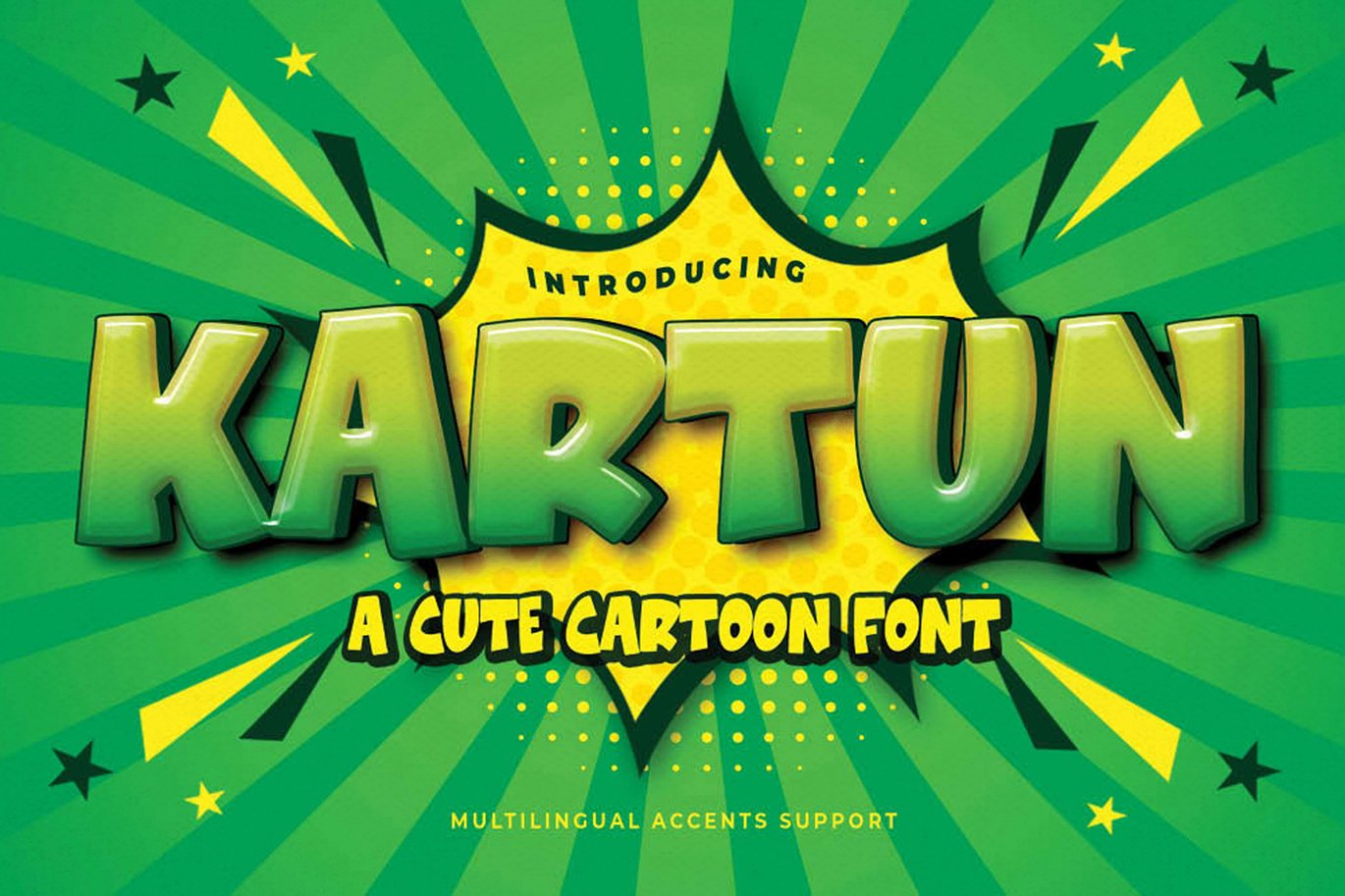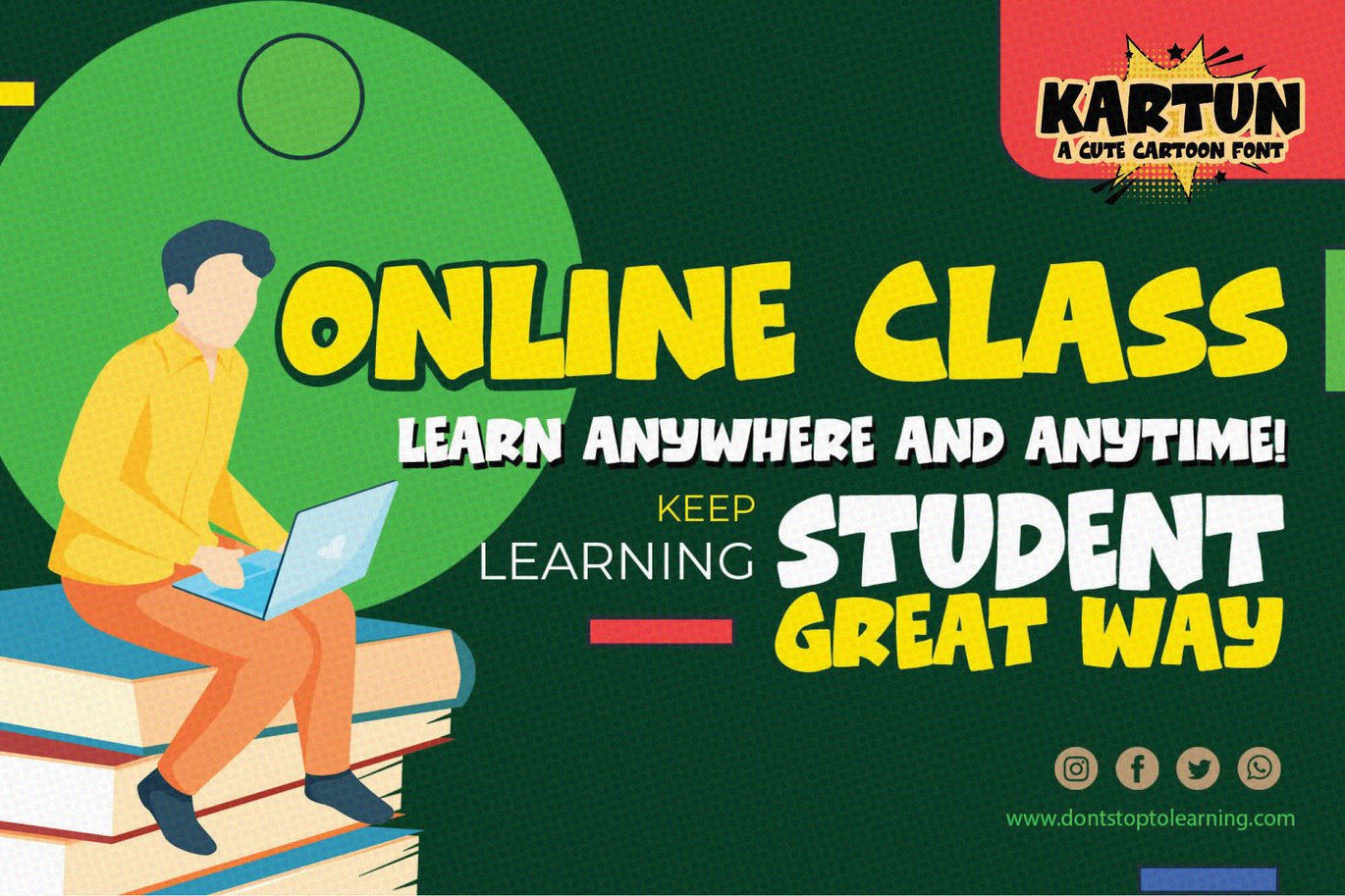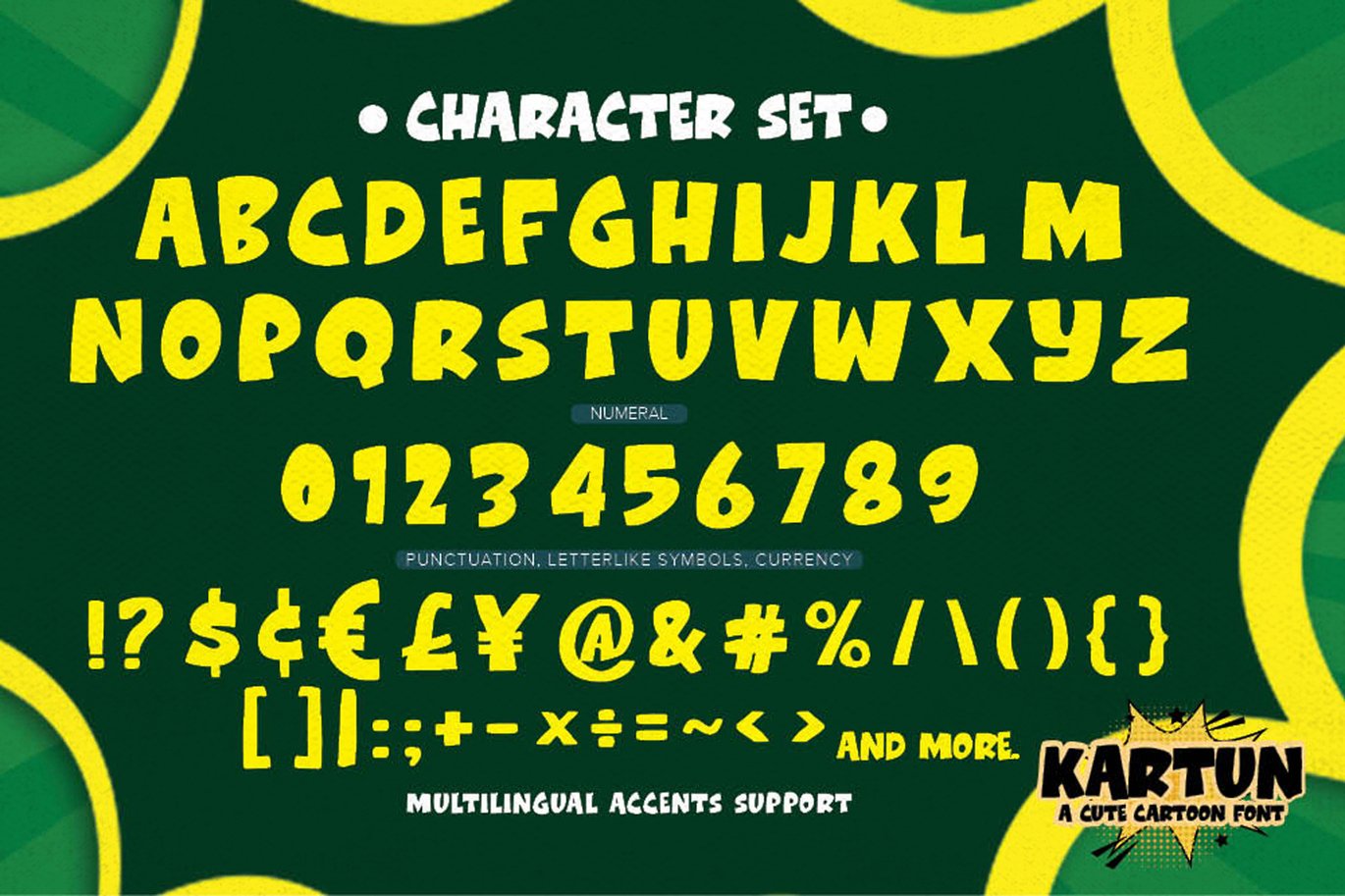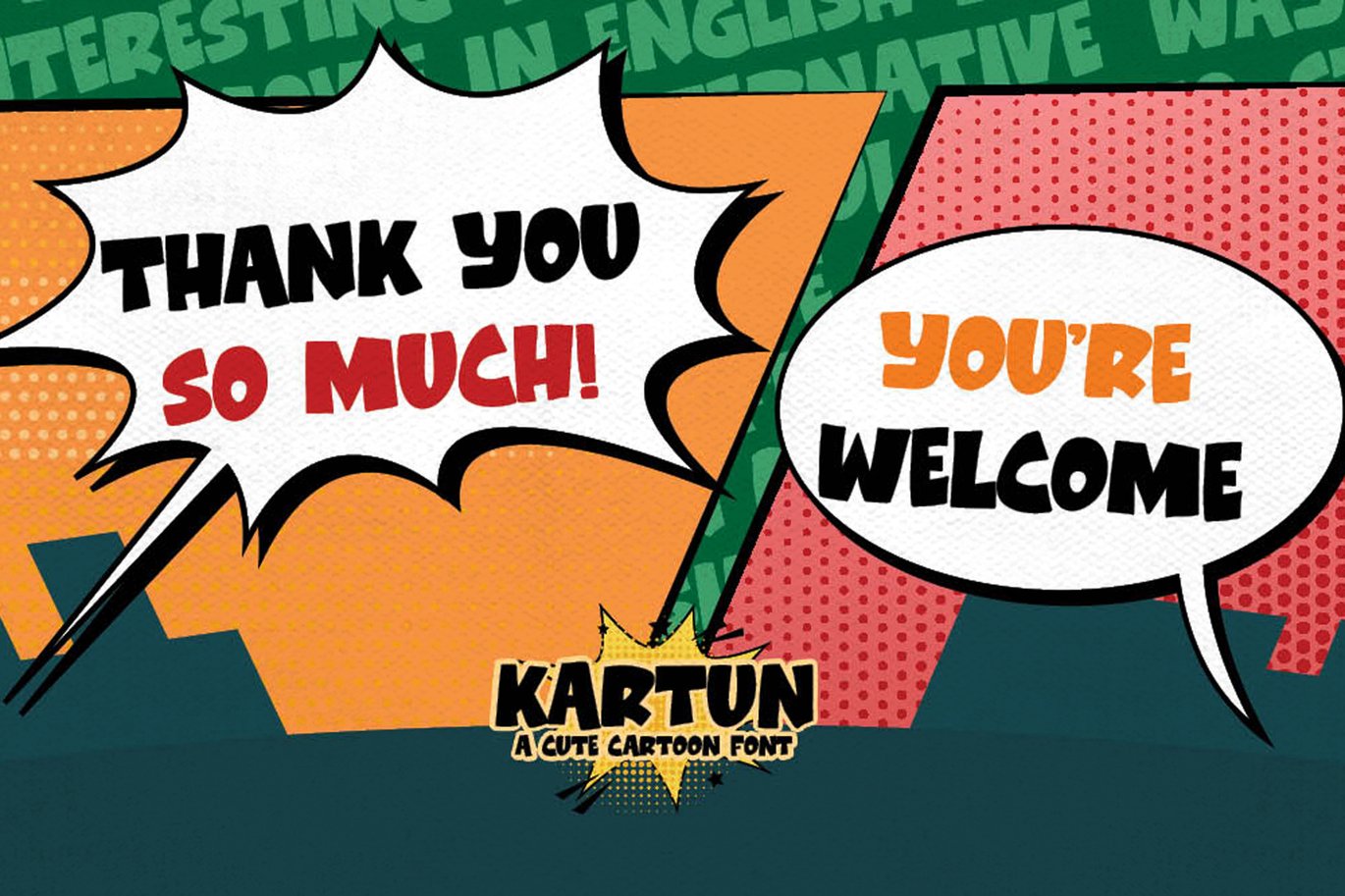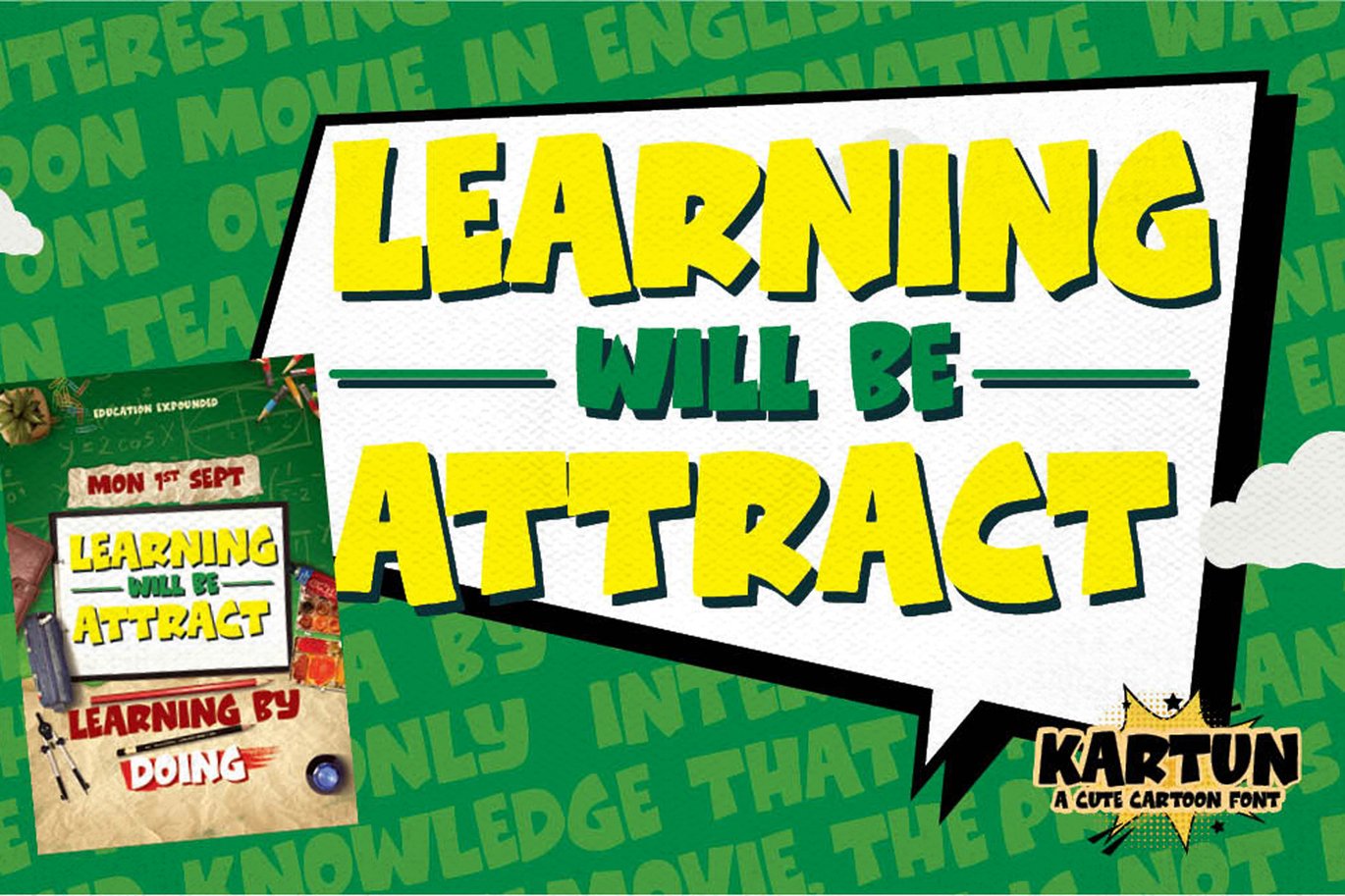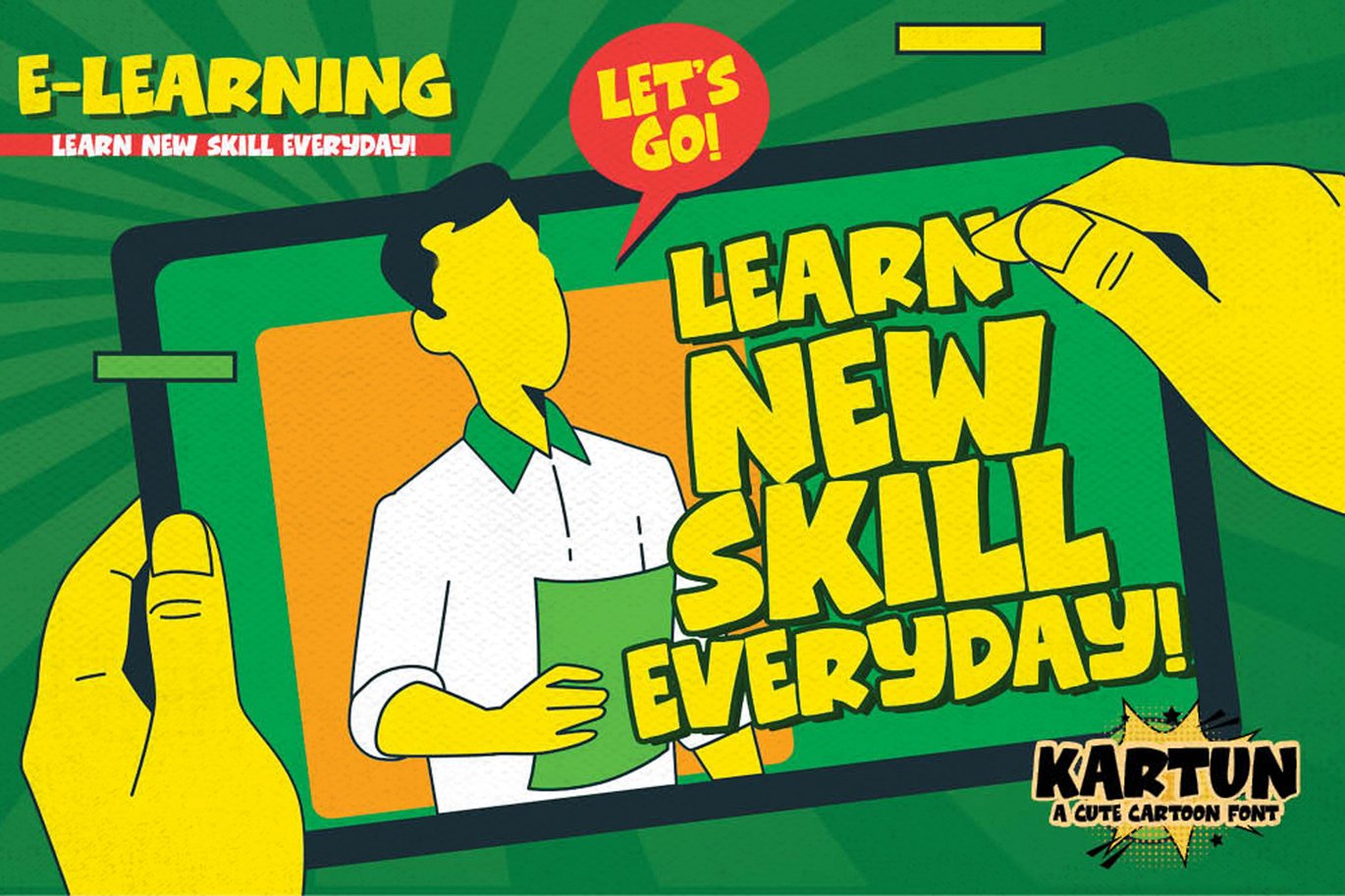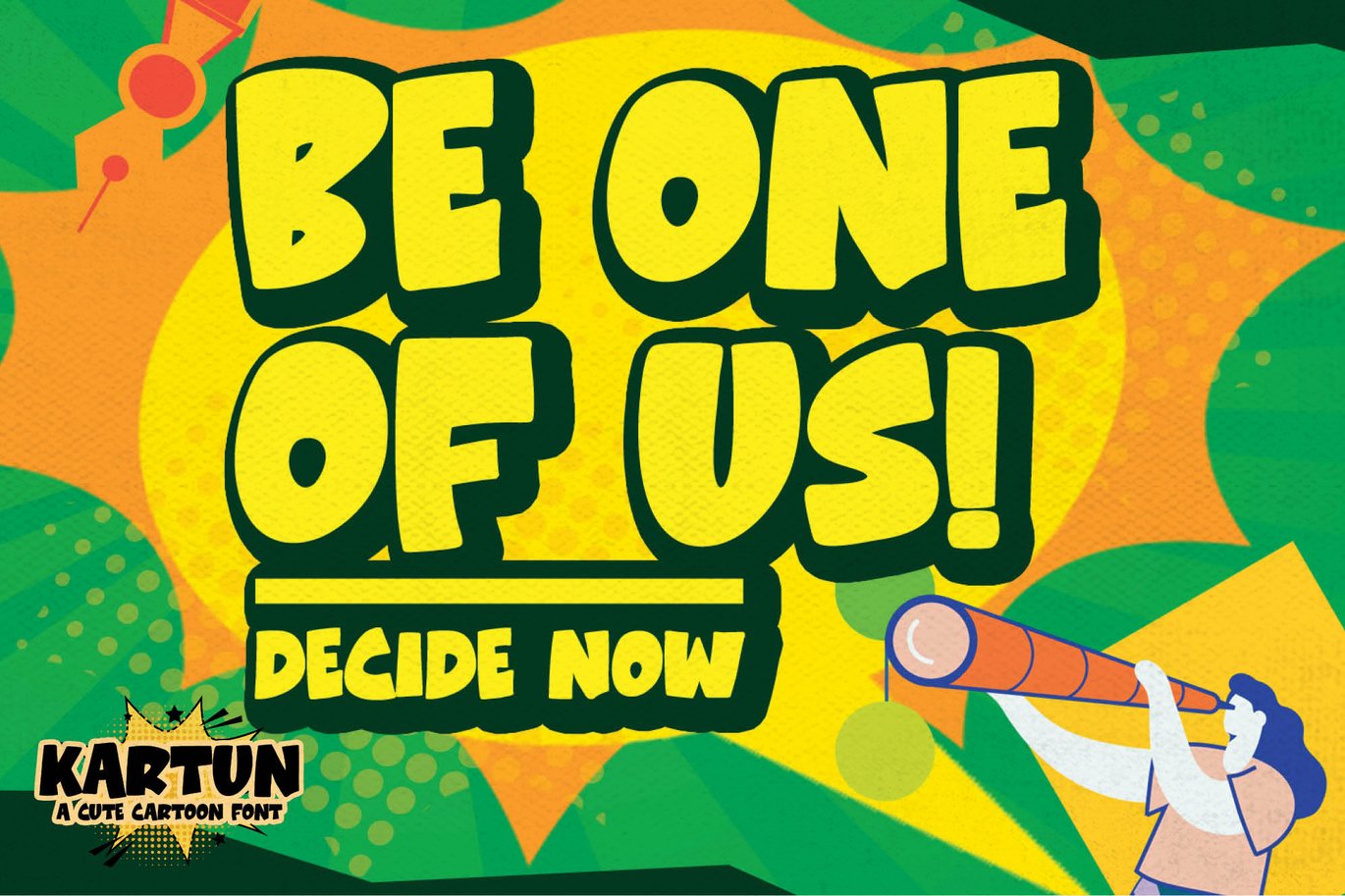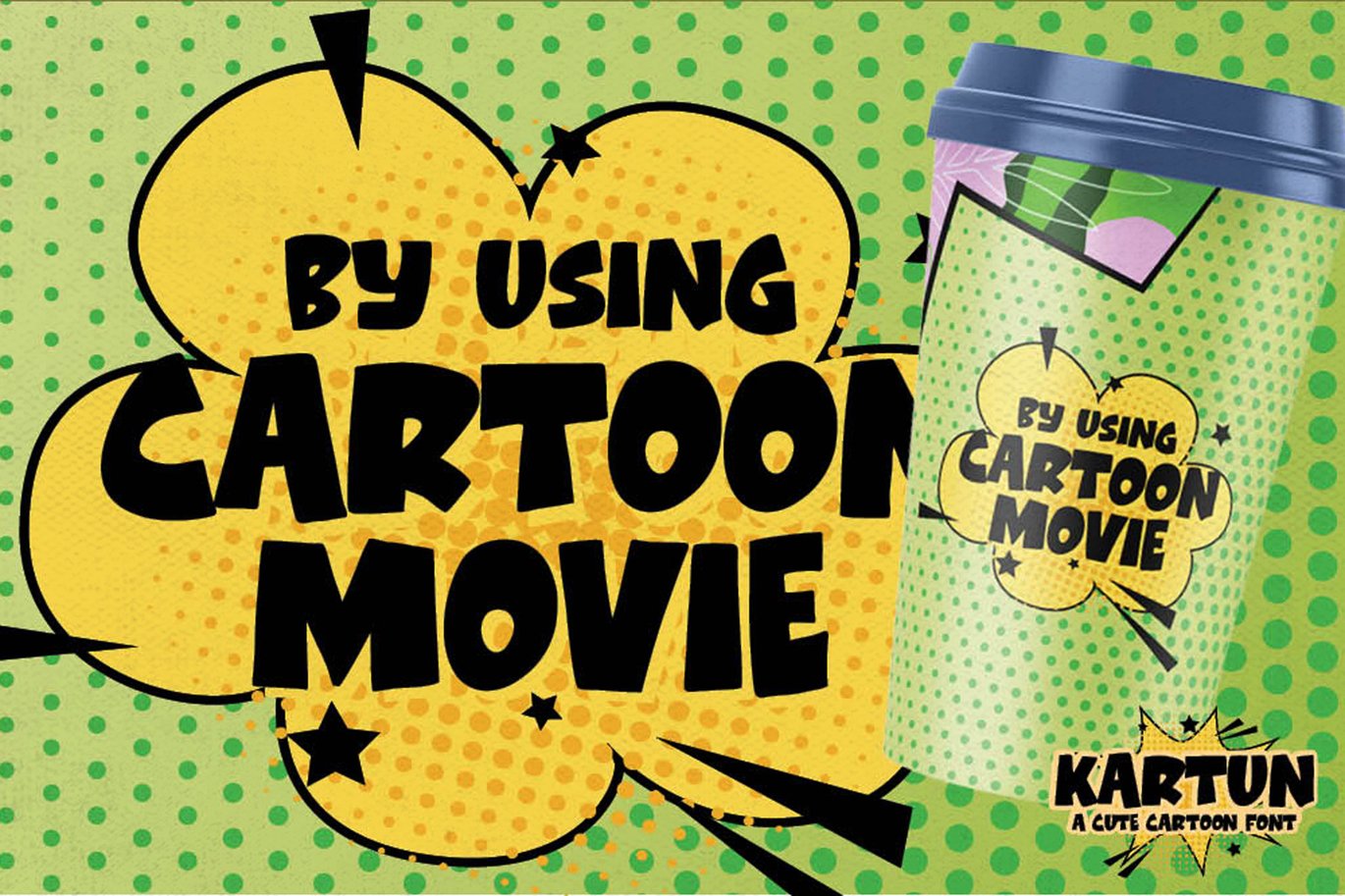
Kartun – A Cute Cartoon Font
Hello Everyone, Introduce our new collection Kartun – A Cute Cartoon Font – Bold Display , Inspired from Modern logos of brands that have very strong characteristics,
very suitable for posters,card to kids cute,and guaranteed to add a sweet touch to your next design,packaging, branding, logotype and more.
Kartun is font with strong and challenging nuances. very suitable for the title, typography, Poster, magazines, brochures, packaging,Websites and much more for your design needs, making your designs more modern and professional.